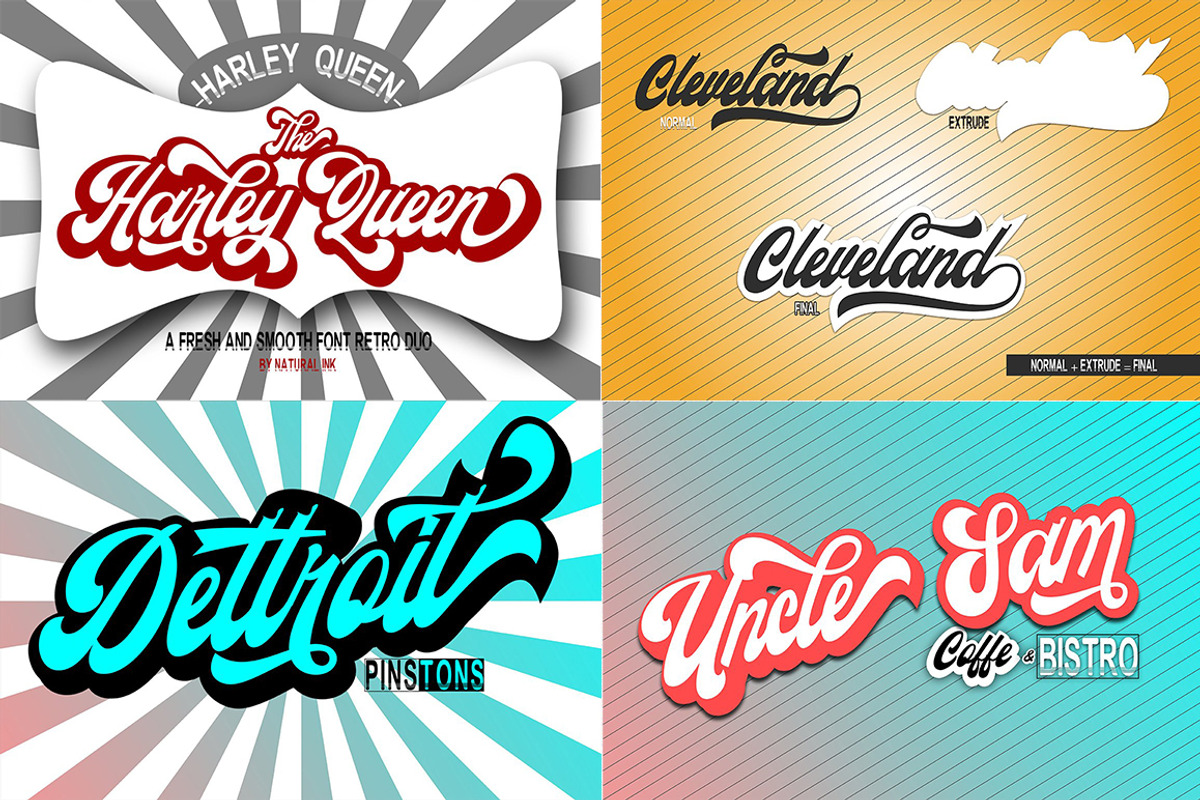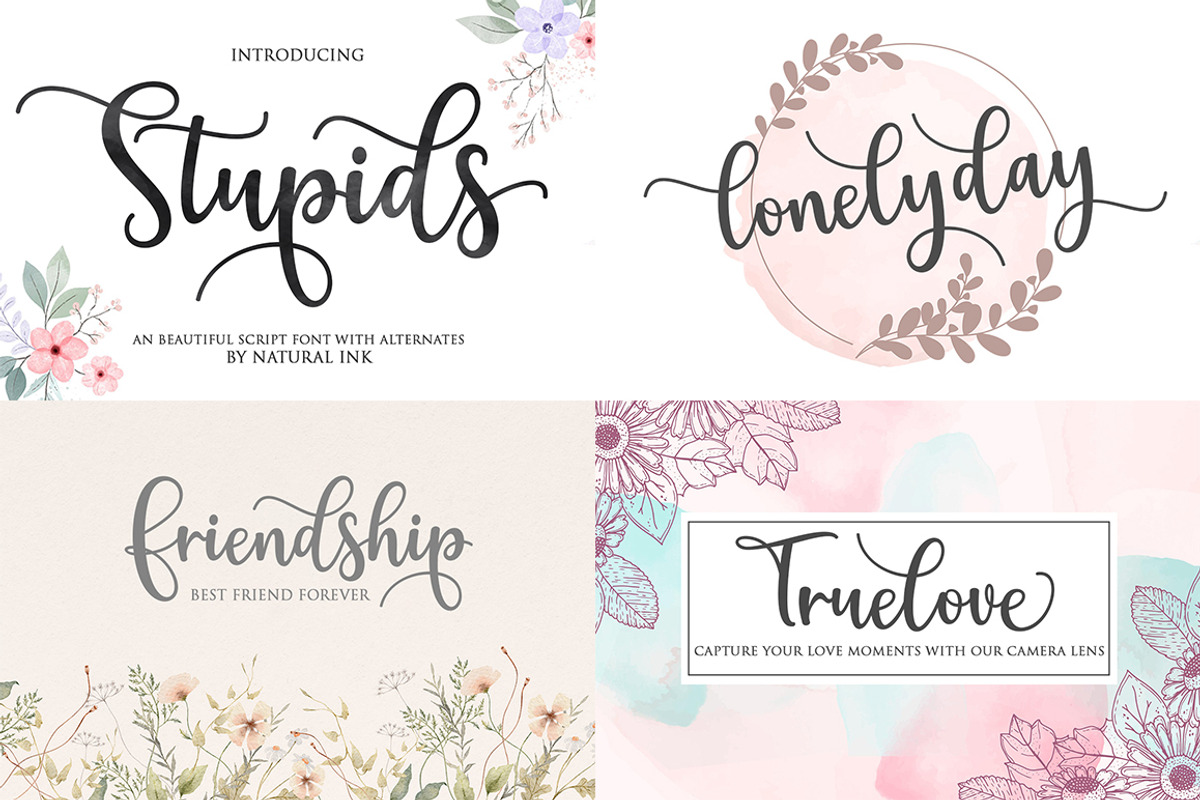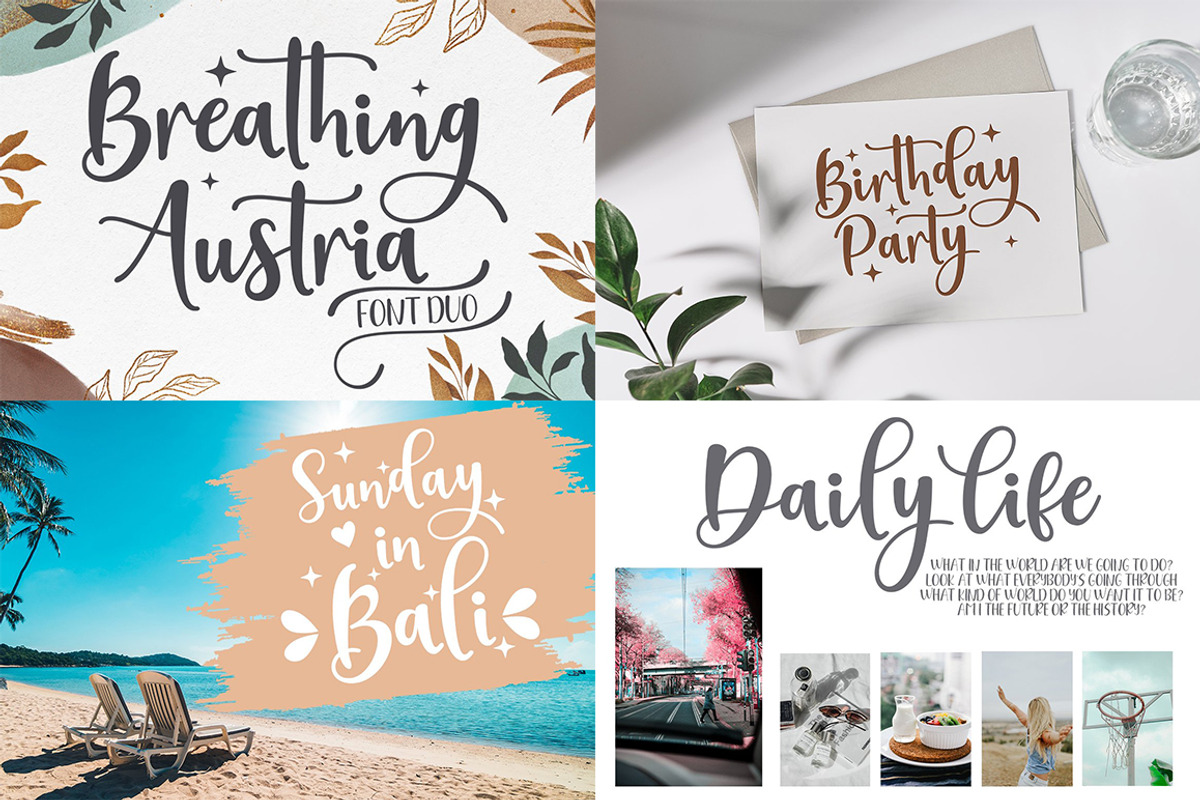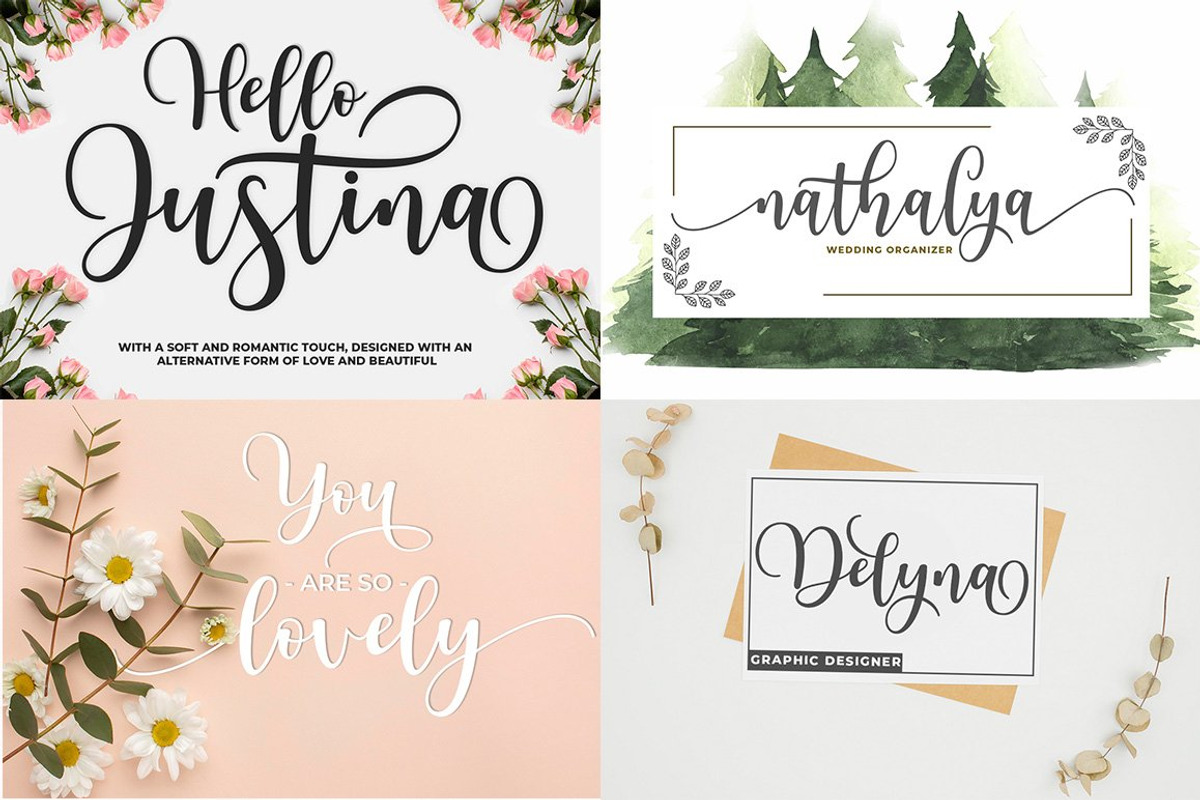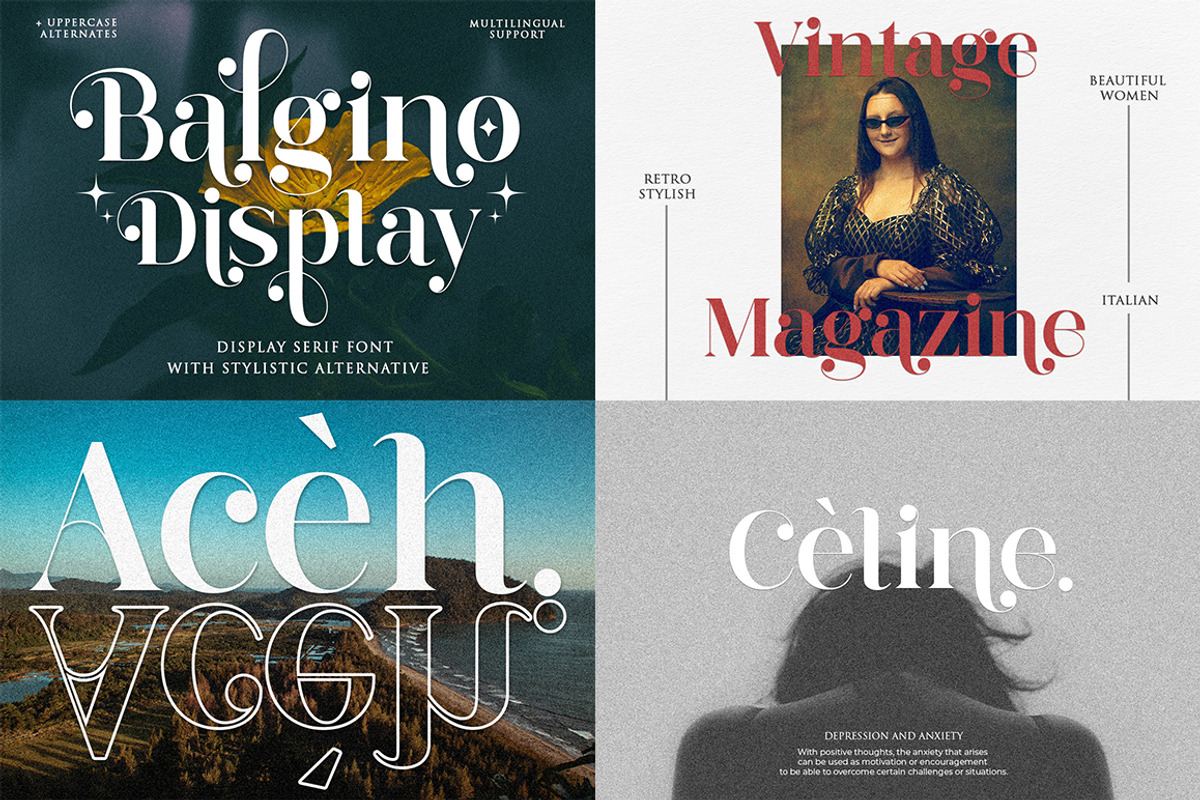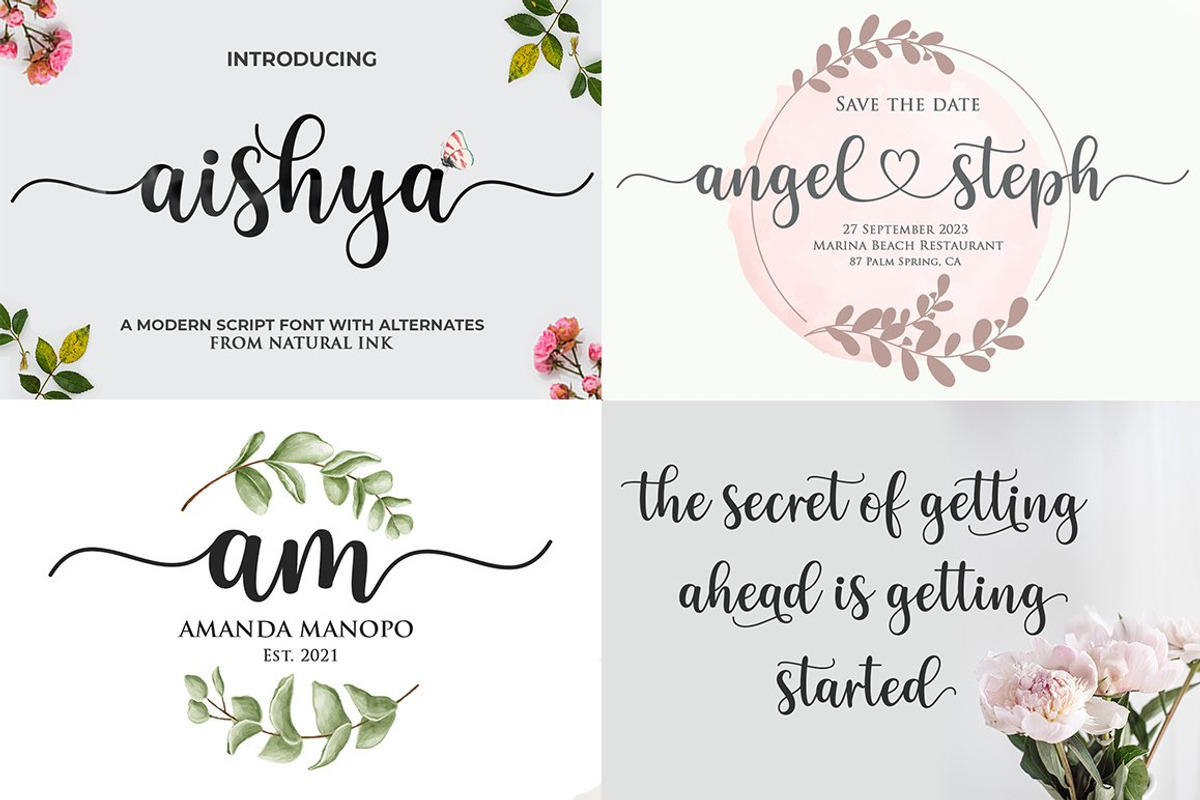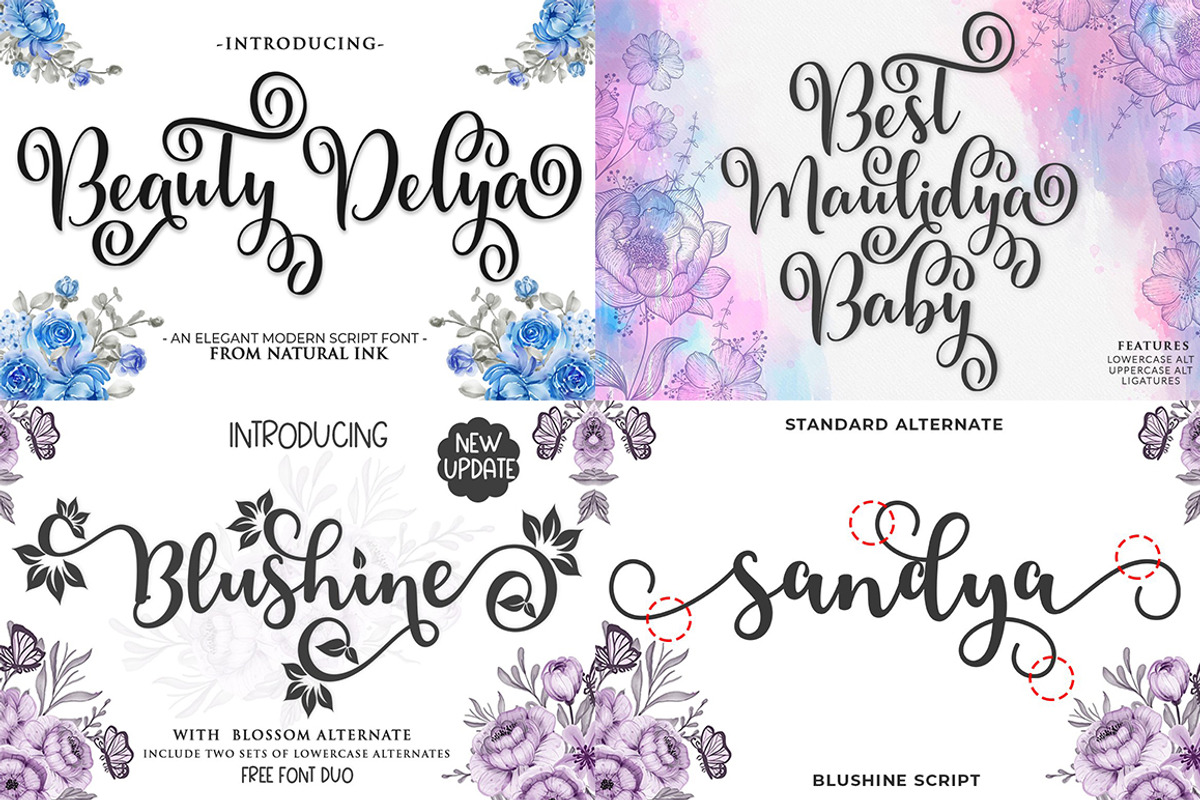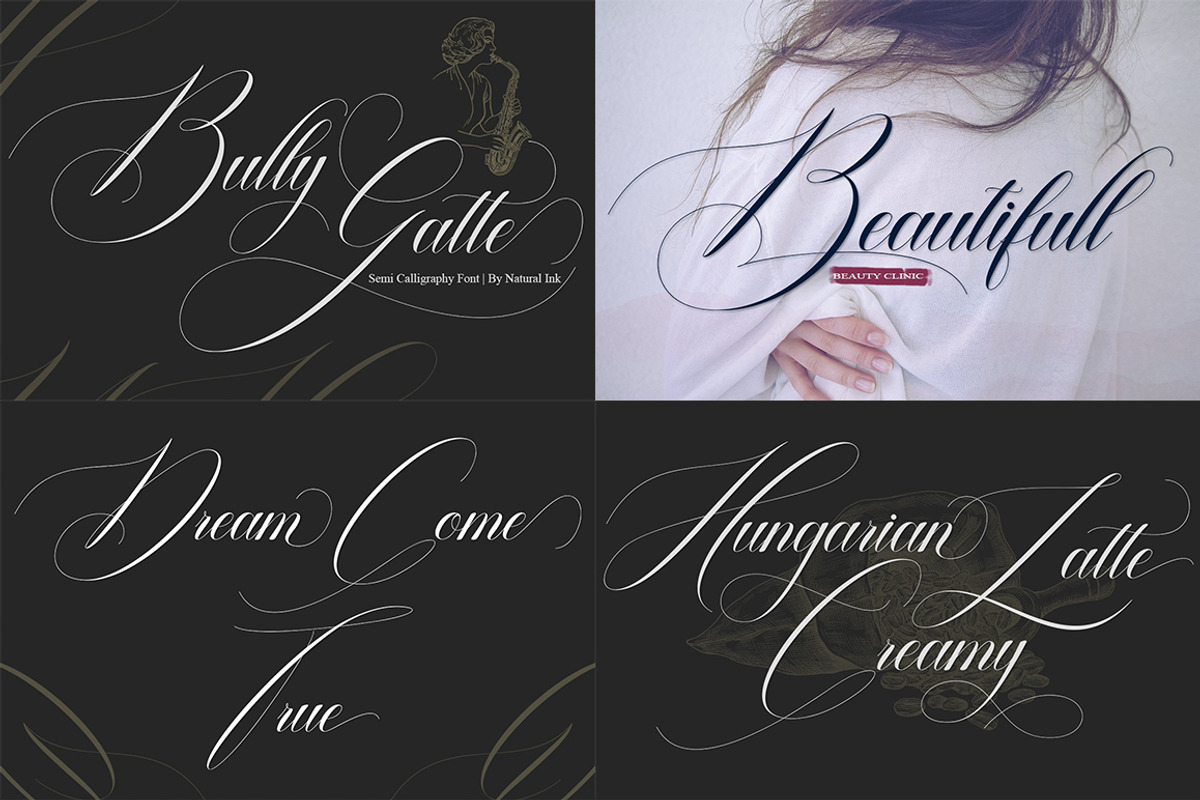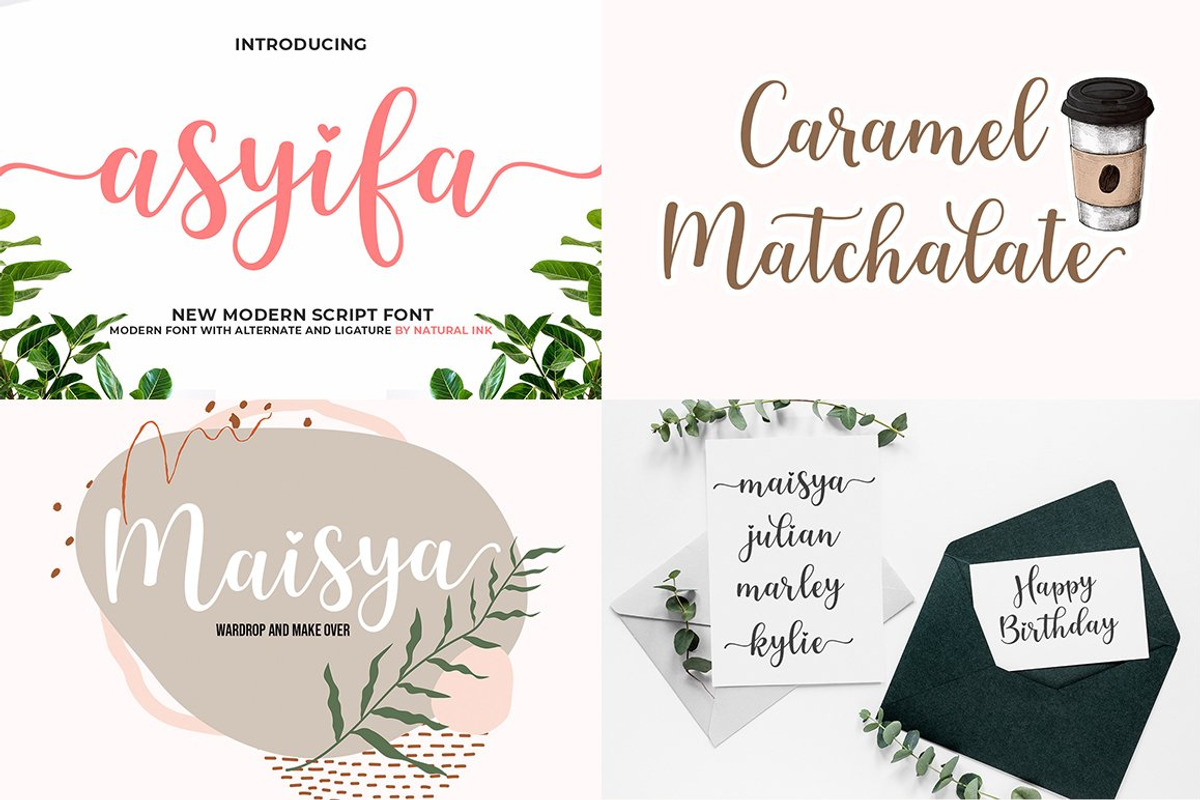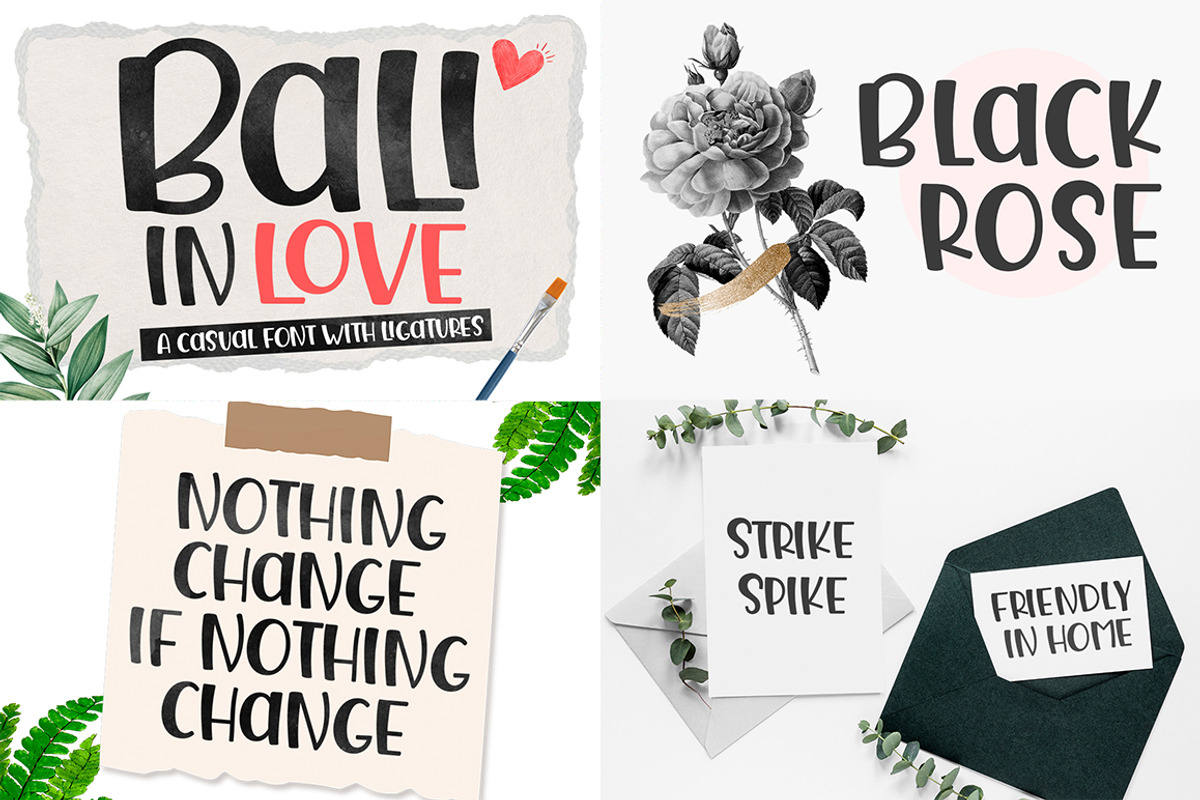
Handmade Font Bundle
More information about this Font This is your chance to get all of my fonts for the super low $19! Includes 74+ Fonts in 54 typography. This bundle includes a variety of font styles such as, calligraphy, signature, brush lettering, handwriting, and many more. with hundreds of glyphs, including alternatives, ligatures, slashes, and international language support.
This pack is perfect for greeting cards, branding, business cards, quotes, posters, stickers, blogs, logos, weddings, signage, packaging, birth announcements, photo overlays, wall art, quotes, printed materials, bags, t-shirts and more. . . !